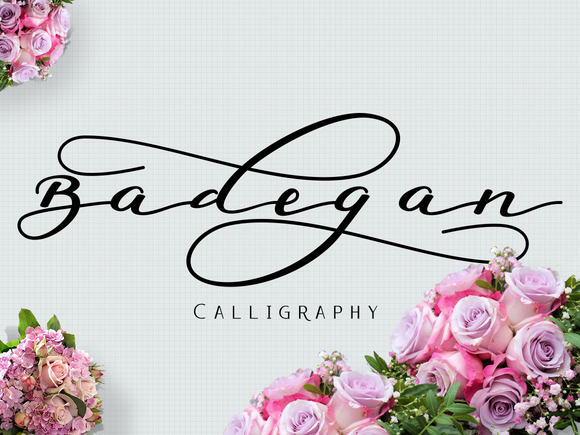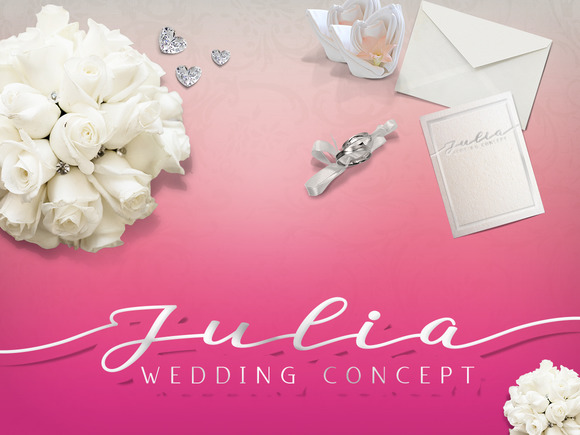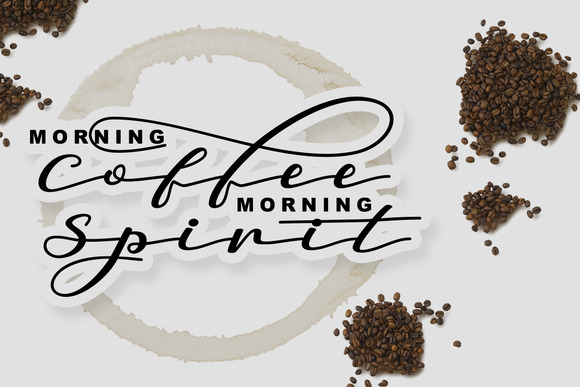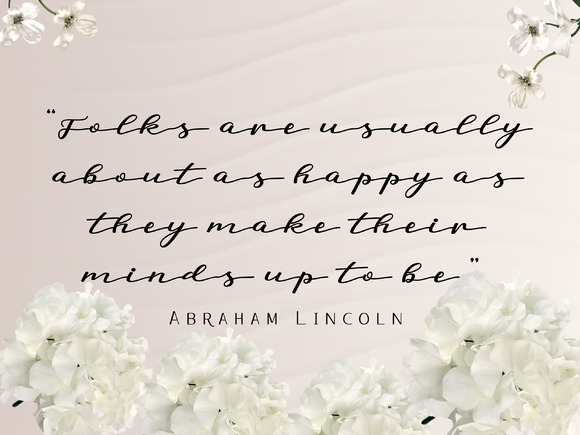
About Badegan Calligraphy Font
The Badegan Calligraphy font is a fresh, modern script font. It features a stunning calligraphy style with very decorative letters and a dancing baseline.
This font would look great on personalized items and as it comes with 377 unique glyphs, it will never grow old. You can use this font over and over again and keep coming up with unique combinations.
The Badegan Calligraphy font features:
PUA Encoding (Private Use Area)
Swashes
Stylistic Sets
Stylistic Alternates
Contextual Alternates